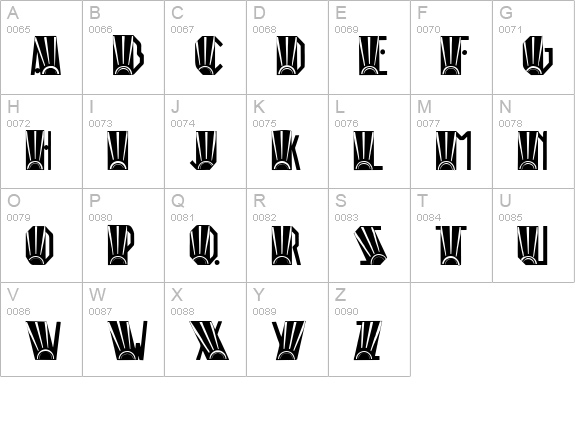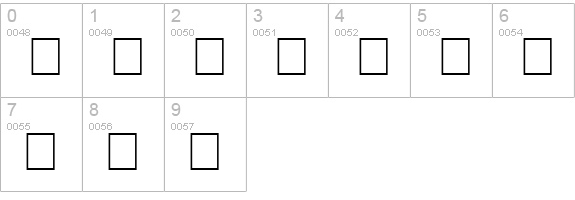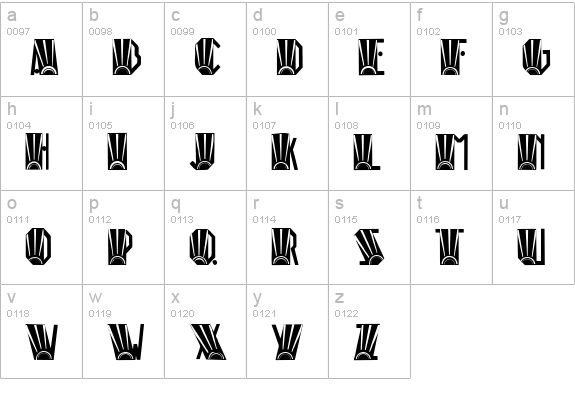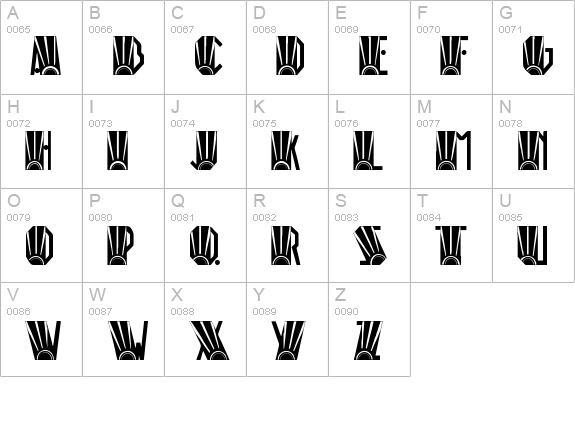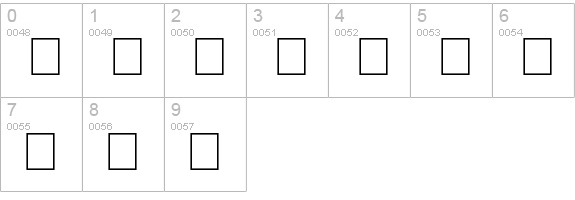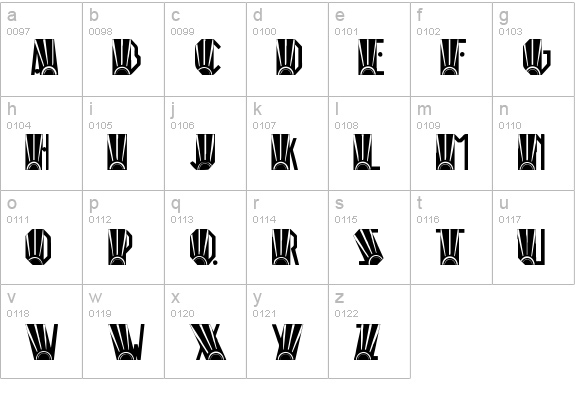
Rio Art Deco font is a stunning and captivating typeface that embodies the essence of the Art Deco era. With its bold and geometric shapes, this font exudes a sense of elegance, sophistication, and modernity. It is the perfect choice for any project that seeks to evoke the glamour and allure of the 1920s and 1930s. The Rio Art Deco font features clean lines and a unique blend of sharp angles and soft curves, creating a visually striking effect that is both timeless and contemporary. Its versatile nature allows it to be used for a variety of design purposes, including logos, headlines, posters, invitations, and more. No matter the application, Rio Art Deco font adds a touch of class and style to any project. One of the best things about Rio Art Deco font is that it is free and readily available to download at FontsMarket.com. This means that anyone can enjoy the beauty and elegance of this font without having to spend a dime. Whether you are a professional designer or a hobbyist looking to add a touch of Art Deco flair to your personal projects, Rio Art Deco font is a fantastic choice. So, why wait? Head over to FontsMarket.com and download Rio Art Deco font today. Let its timeless beauty and striking design elevate your creations to new heights.